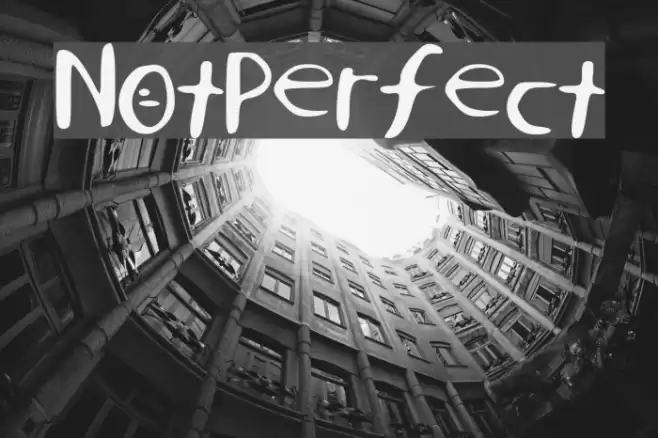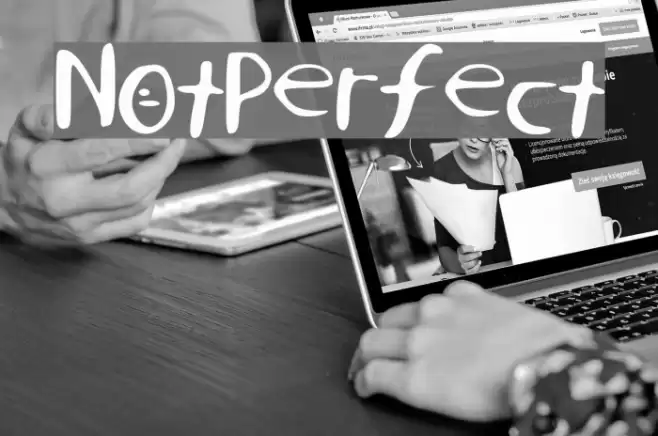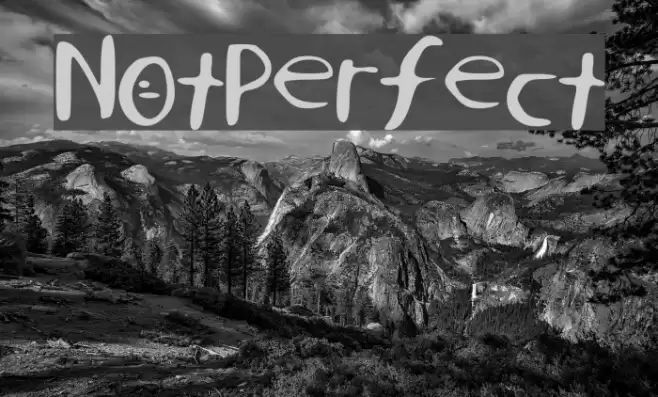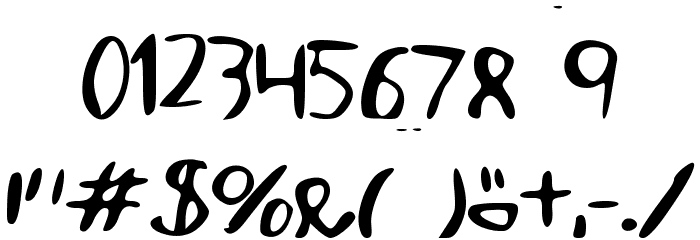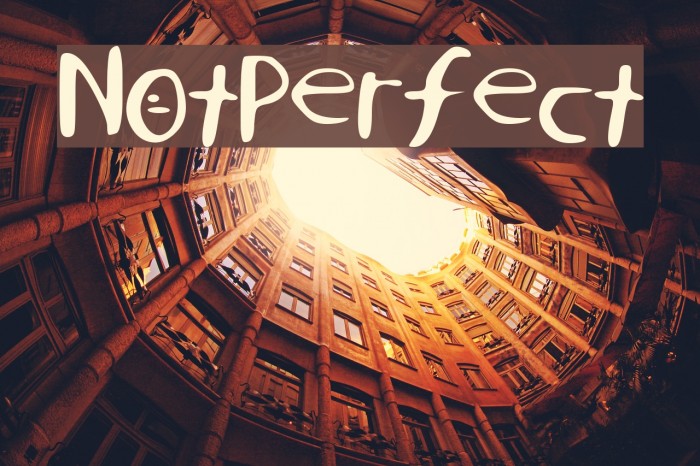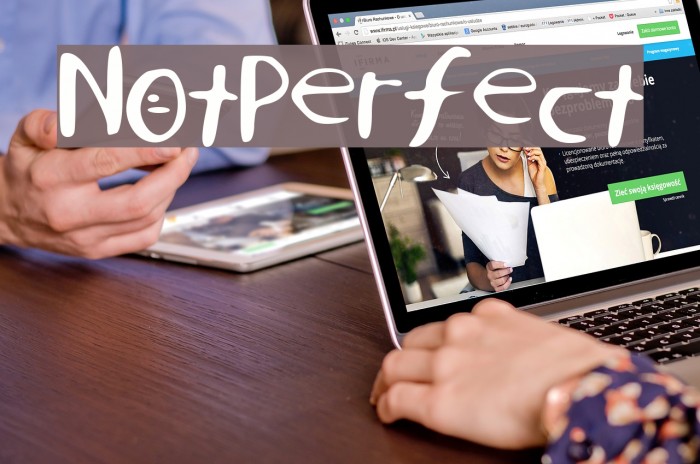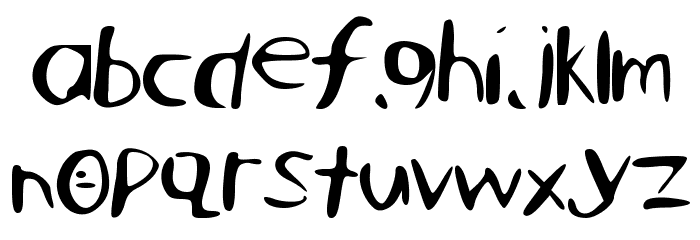
NotPerfect Font
NotPerfect Description
This playful and whimsical font features a hand-drawn style with uneven strokes and a casual appearance. The characters are slightly irregular, adding a unique charm and personality. The uppercase letters are bold and rounded, while the lowercase letters maintain a consistent flow with quirky variations. Numbers and special characters follow the same playful design, making the font suitable for creative projects. The overall look is informal and friendly, perfect for adding a touch of fun to any design.
A playful, hand-drawn font with a whimsical and casual style from Uncategorized fonts.
- Proposed Projects: Ideal for children's books, comic strips, playful branding, and creative posters.